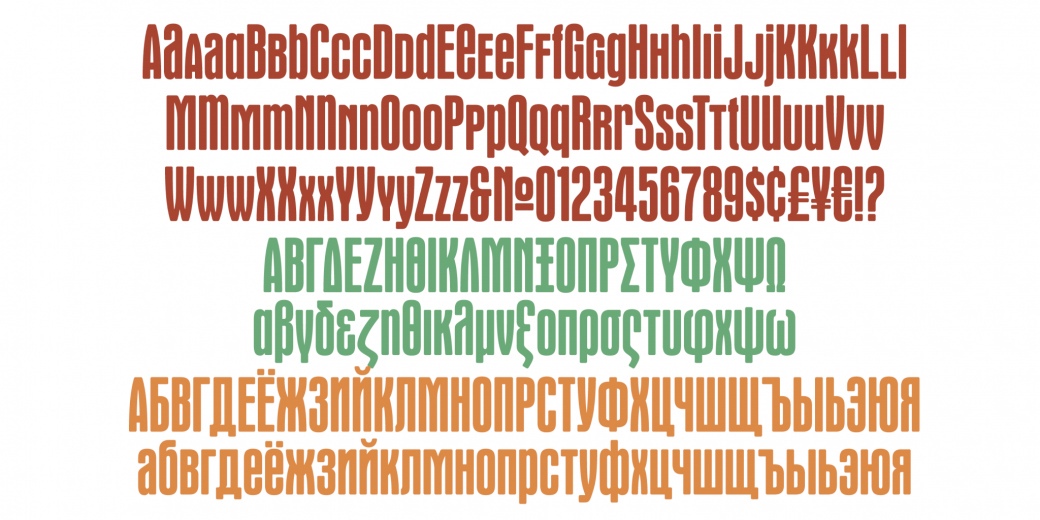
Wagner Round Pro Font
Wagner Round Pro Font is perfect for modern tech company branding, friendly app interfaces, children's educational materials, healthcare communication, contemporary corporate presentations, accessible web design, playful product packaging, innovative startup logos, user-friendly signage, and inclusive brand identity systems.
Wagner Round Pro Font creates excitement because it masterfully combines professional sophistication with approachable warmth through its expertly rounded letterforms and contemporary character design. The font's gentle curves and balanced proportions create an instant sense of friendliness and accessibility while maintaining the authority and credibility that modern businesses require. Its innovative rounded aesthetic breaks down barriers between brands and audiences, making complex information feel approachable and trustworthy to diverse user groups.
The Wagner Round Pro Font family includes multiple weights and styles: Regular, Bold, Light, Medium, Black, Italic, Bold Italic, Condensed, Extended, and Display versions. Each variant preserves the font's signature rounded character while offering different levels of visual weight and presence suitable for comprehensive brand systems and diverse communication needs.